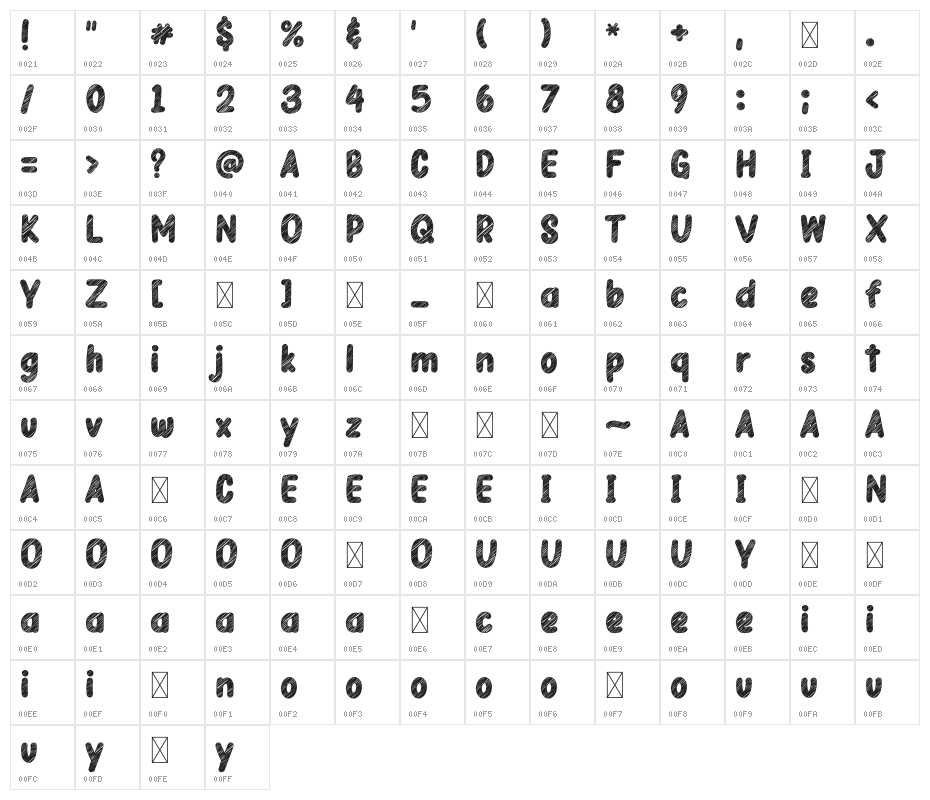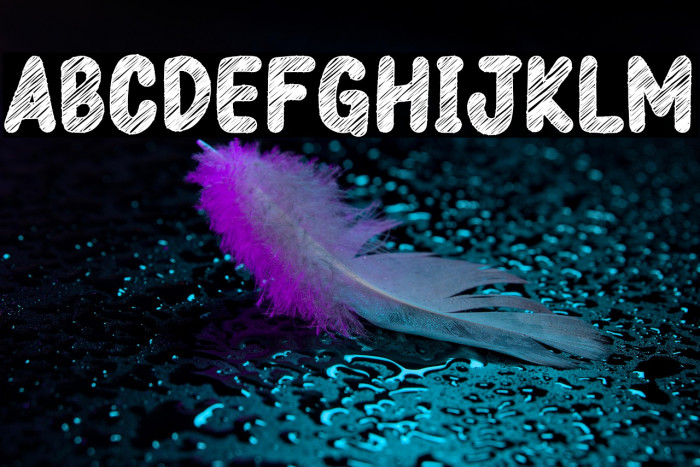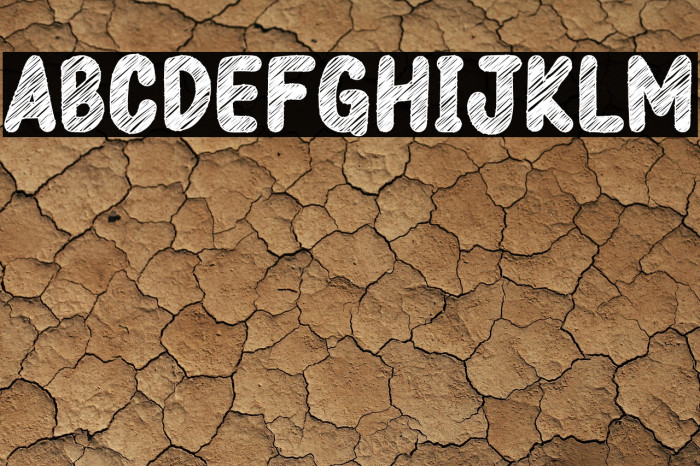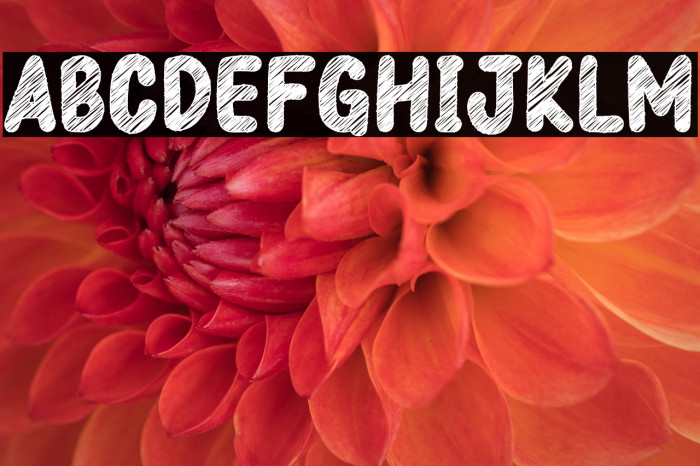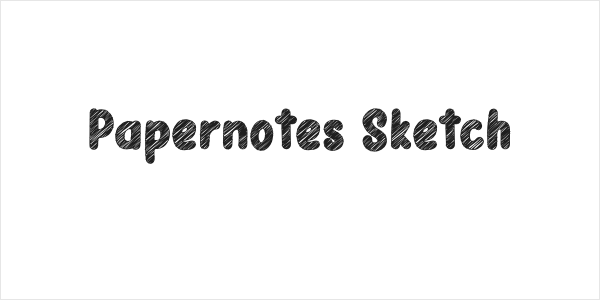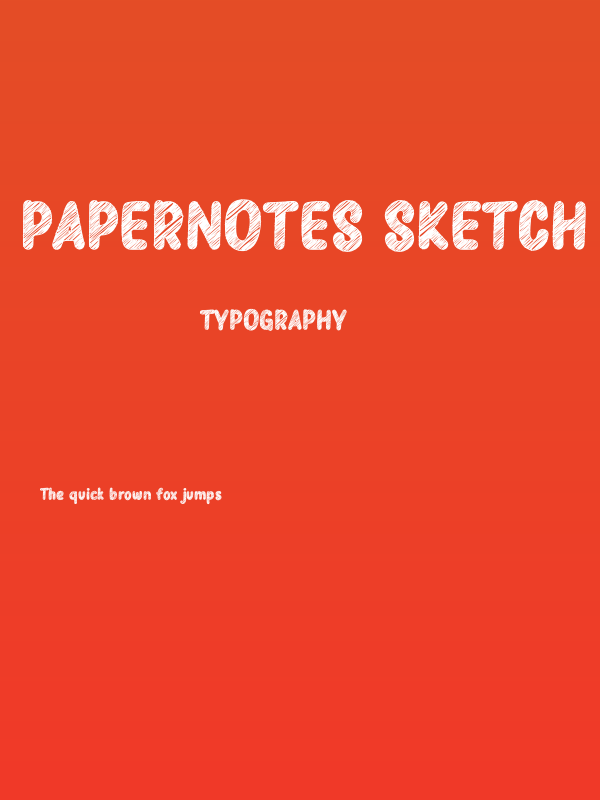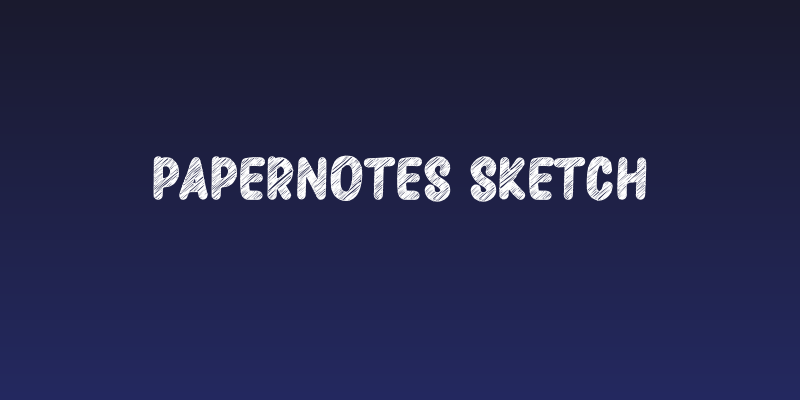
Papernotes Sketch Font
Papernotes Sketch Description
This playful and artistic font features a hand-drawn, sketch-like appearance with a textured fill that mimics the look of pencil shading. The characters are bold and rounded, giving them a friendly and approachable feel. Each letter and number is distinct, with a consistent style that maintains readability while adding a creative flair. The font includes a full set of uppercase and lowercase letters, numbers, and a variety of special characters, making it versatile for different design needs. Its unique style is perfect for projects that require a personal touch or a casual, informal vibe.
| Proposed Projects | Ideal for children's books, creative posters, greeting cards, and educational materials. |